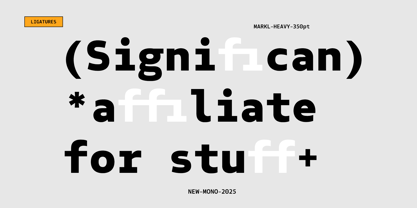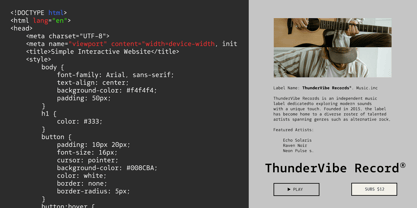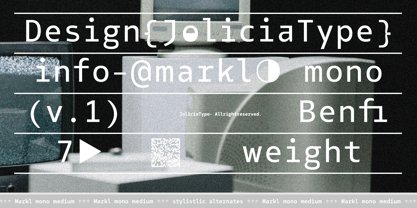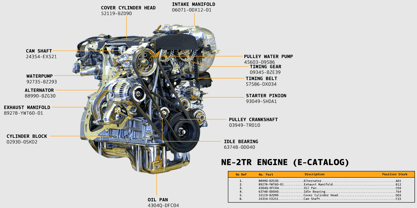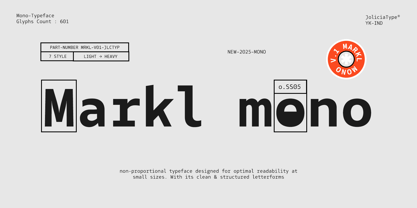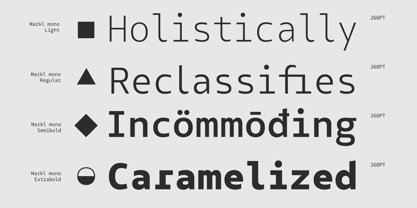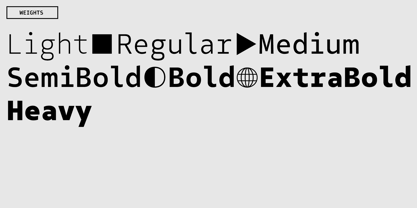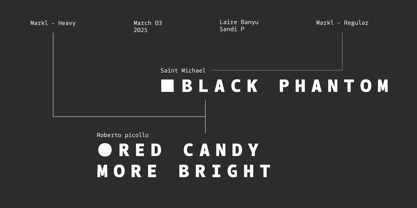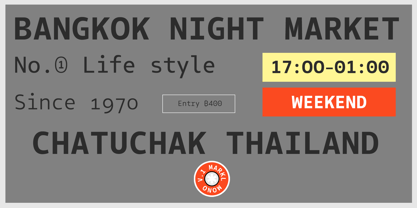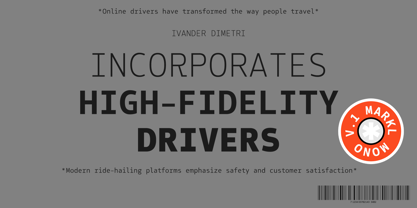
Markl Mono
by Jolicia Type
The Markl Mono Font Family was designed by Laire Banyu and published by Jolicia Type. Markl Mono contains 7 styles and family package options. More about this family
Markl Mono is a non-proportional monospaced typeface that prioritizes precision and readability. Featuring 7 weights, from Light to Heavy, this font is designed for a clean and balanced appearance, making it ideal for small-size applications.
With a total of 601 glyphs, Markl Mono includes alternate characters for R, a, f, g, j, k, l, r, t, y, o, providing greater flexibility in design exploration. Its consistent structure and steady rhythm make it perfect for technical use, coding, UI/UX, and editorial design that demands a neat and professional look.